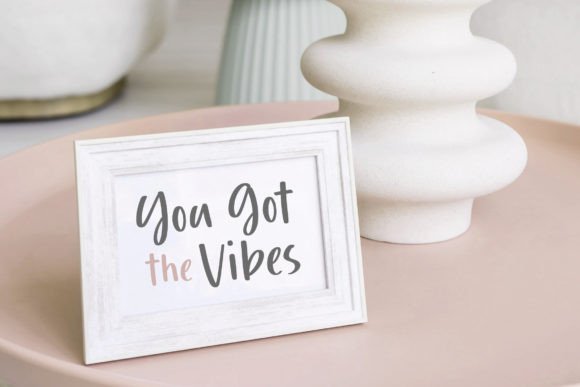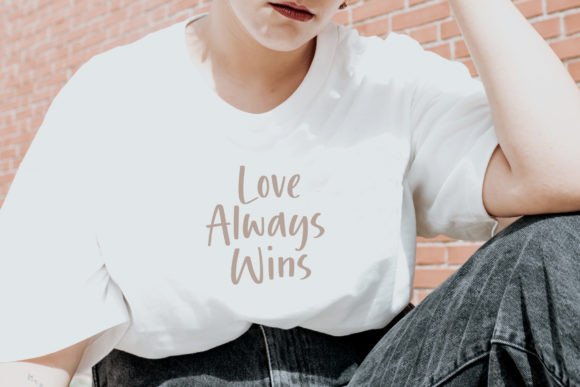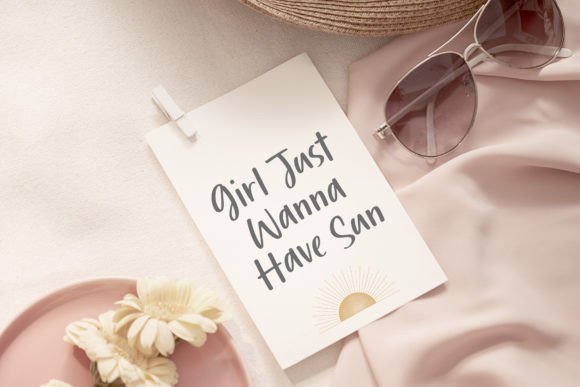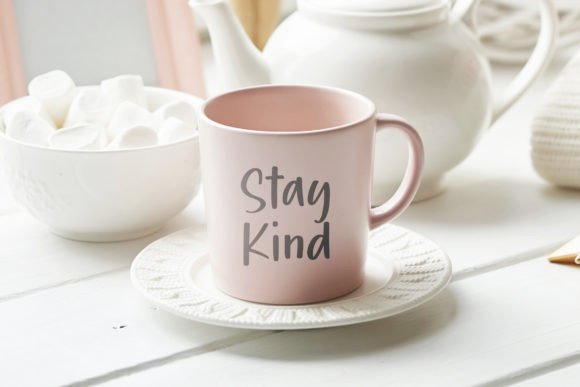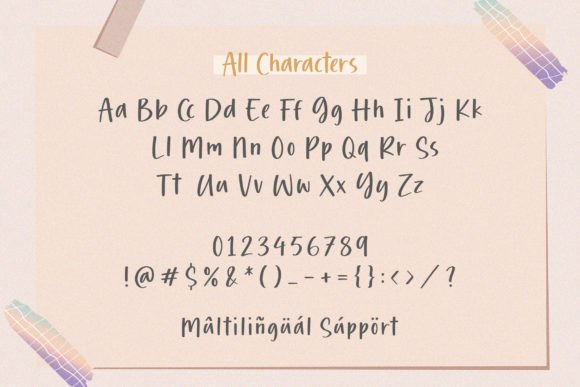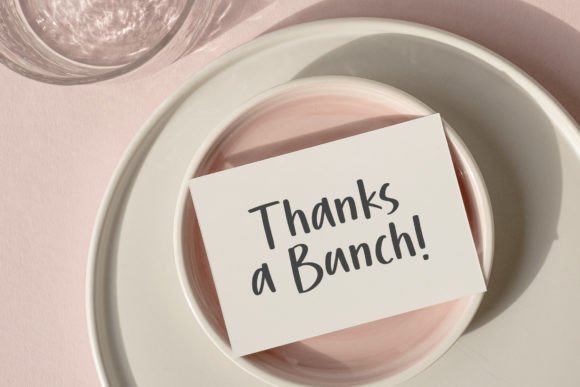
Introduction to Rainbow Umbrella Font
As you sit at your desk, surrounded by scraps of paper, pens, and half-finished projects, a spark of creativity strikes. The perfect font for your next design project suddenly comes to mind, and you can’t help but feel a rush of excitement. For many designers, this moment is all too familiar, and it’s exactly what led us to discover the incredible Rainbow Umbrella Font.
With its high-quality, handwritten feel and calligraphic influences, the Rainbow Umbrella Font is a true design resource that will elevate your creative projects to new heights. Whether you’re working on a logo, brochure, or social media graphic, this versatile font is sure to bring a touch of class and sophistication to your work.
Key Features of Rainbow Umbrella Font
- High-quality design resource perfect for creative projects, available for free download with a transparent background.
- Unique, hand-drawn design with a vibrant and colorful aesthetic, ideal for adding a playful touch to your designs.
- Features a range of characters, including uppercase and lowercase letters, numbers, and punctuation marks, making it a versatile design resource.
- Perfect for use in digital designs, such as social media graphics, website headers, and advertising materials, due to its modern and eye-catching design.
Honest Review: Rainbow Umbrella Font
I recently came across the Rainbow Umbrella Font and I’m excited to share my honest thoughts on this design resource.
What works well is the font’s playful and whimsical feel, making it perfect for creative projects like children’s books, party invitations, or social media graphics. The high quality of the font is evident in its crisp lines and smooth curves, making it suitable for both digital and print designs.
- Only a few styles are available
- No bold or italic variations
- Might not be suitable for professional or corporate designs
Overall, I think the Rainbow Umbrella Font is a great addition to any designer’s toolkit. While it may not be perfect for every project, its unique charm and high quality make it a valuable resource for creative endeavors.
The Rainbow Umbrella Font is a unique, high-quality design resource ideal for creative projects. This free download features a transparent background, making it easy to integrate into your designs.
The Rainbow Umbrella Font is ideal for creative projects, such as greeting cards, social media graphics, and website headers. Its unique design and transparent background make it a versatile and useful resource for designers and non-designers alike.